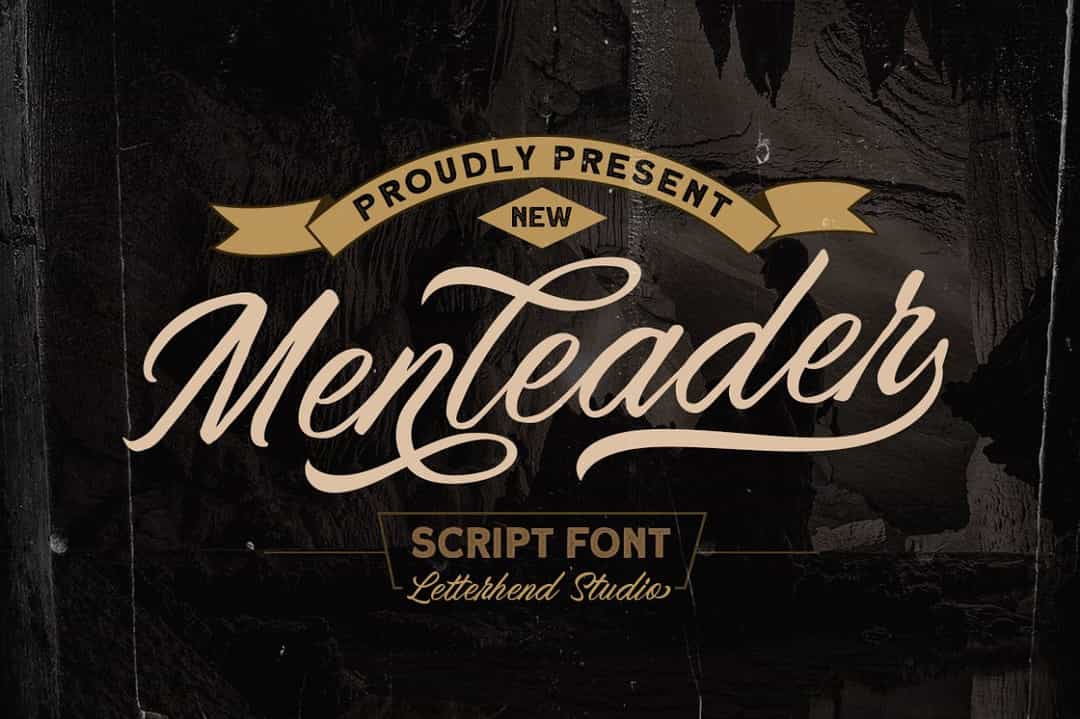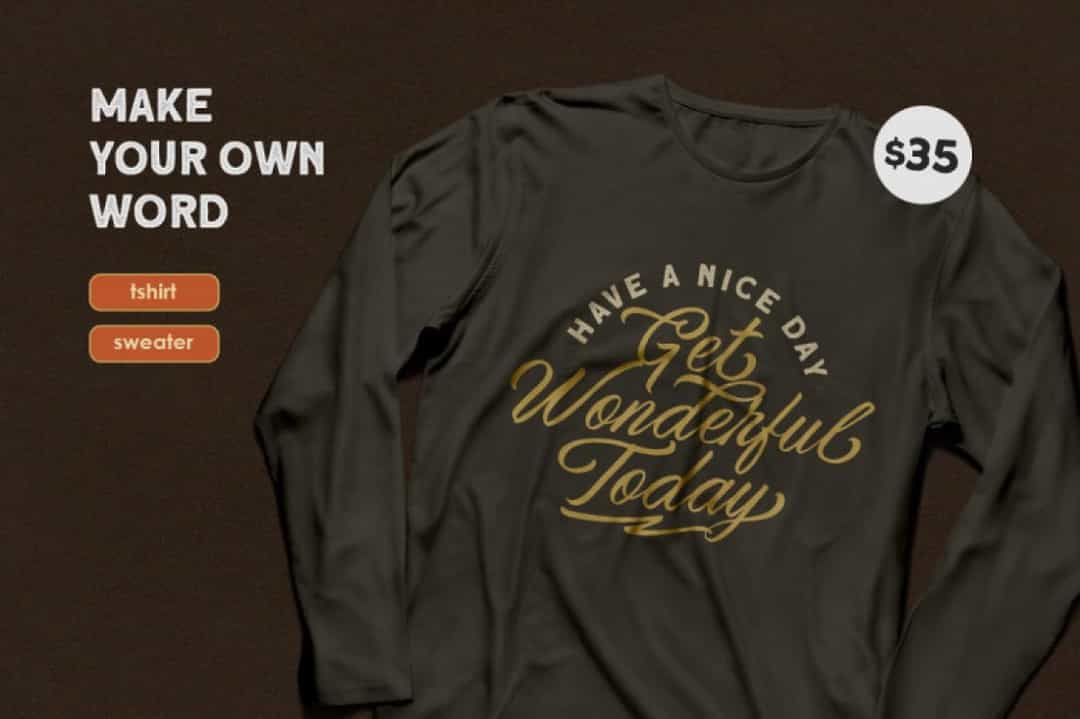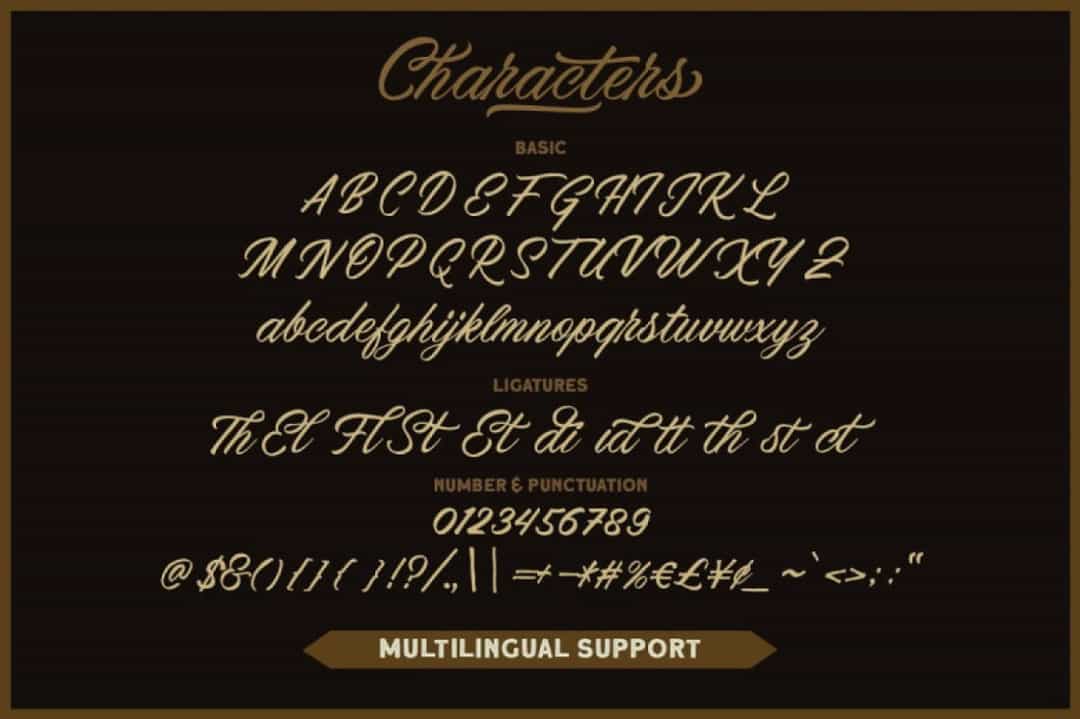
Menleader is a bold script font with vintage charm. Designed specifically to be used in headlines, logos signs, labels, invitations and books; logos magazines wedding cards packaging fashion make-up books stationery labels etc. for advertising purposes this type of font can make an impressive statement about any cause or service it represents.